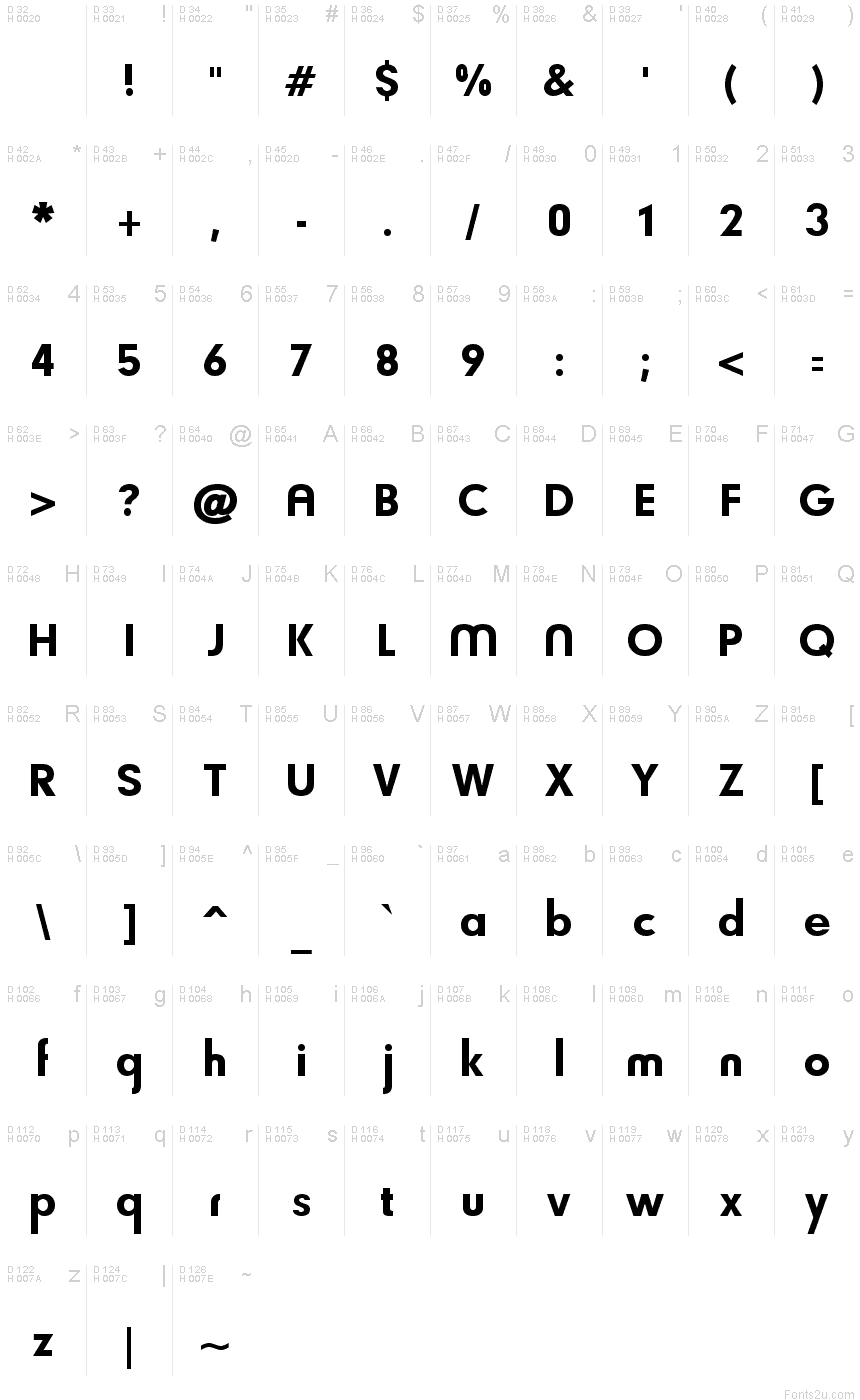
Soul Papa
Soul Papa by Ray Larabie is a free heavy sans serif with a friendly late-1990s snap. The letters feel big, smooth, and upbeat, with rounded curves, plain geometry, and a simple weighty rhythm that gives the font a casual pop without turning cartoonish.
It works well for record sleeves, poster titles, magazine cover lines, logo sketches, and short packaging names where that chunky, open lettering can do the talking. As a free font, it also makes sense for zines, flyers, and title cards, especially when you want a few words to feel bold and approachable rather than sleek or severe.